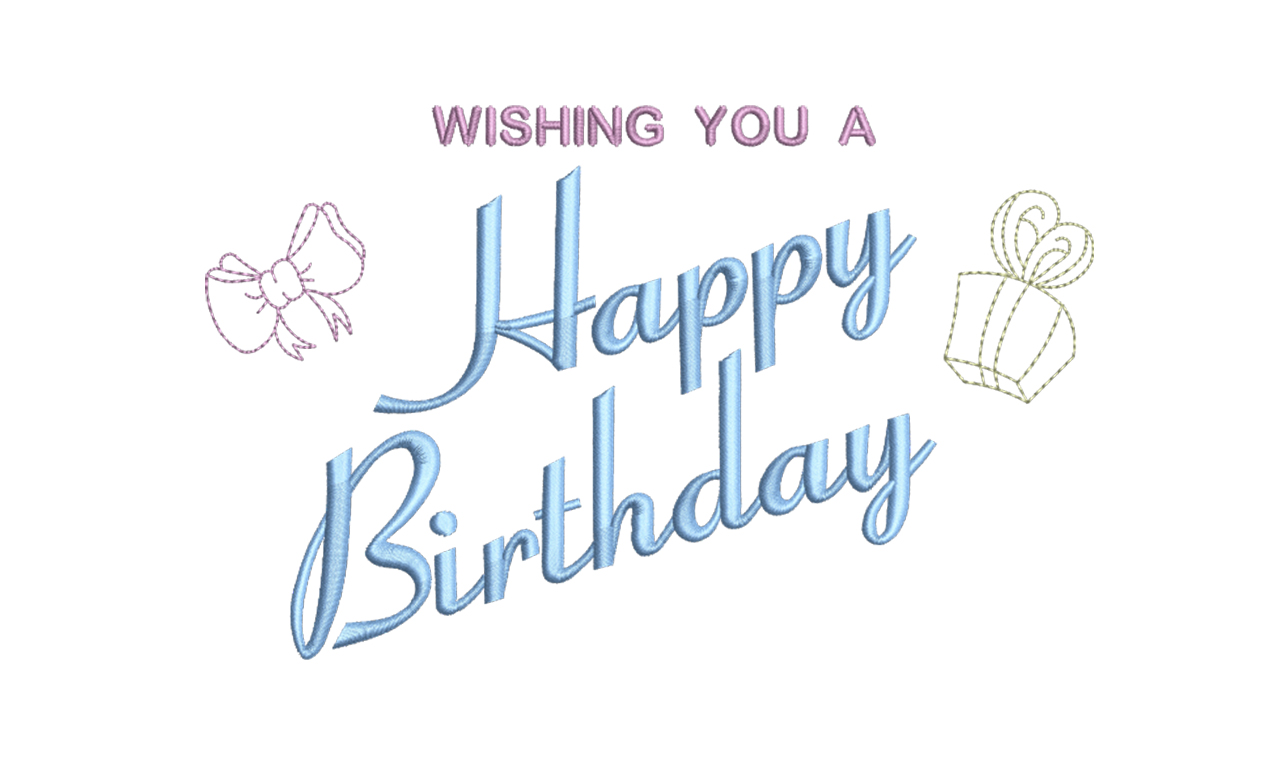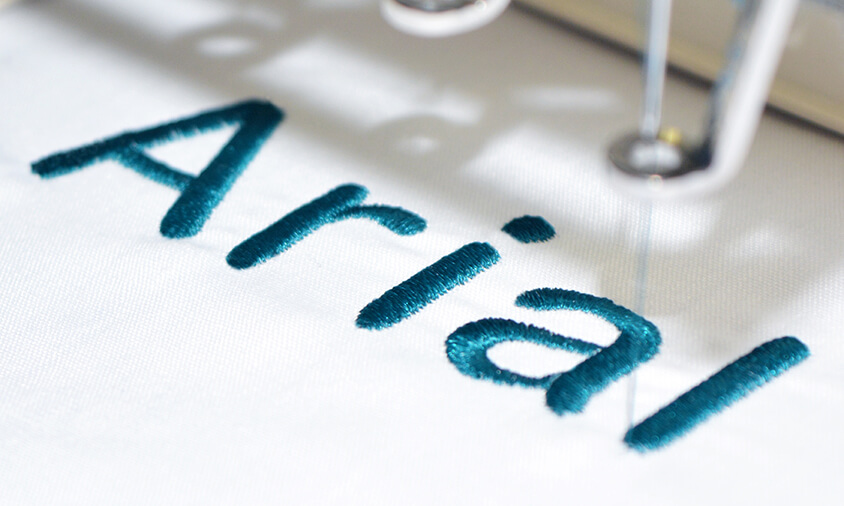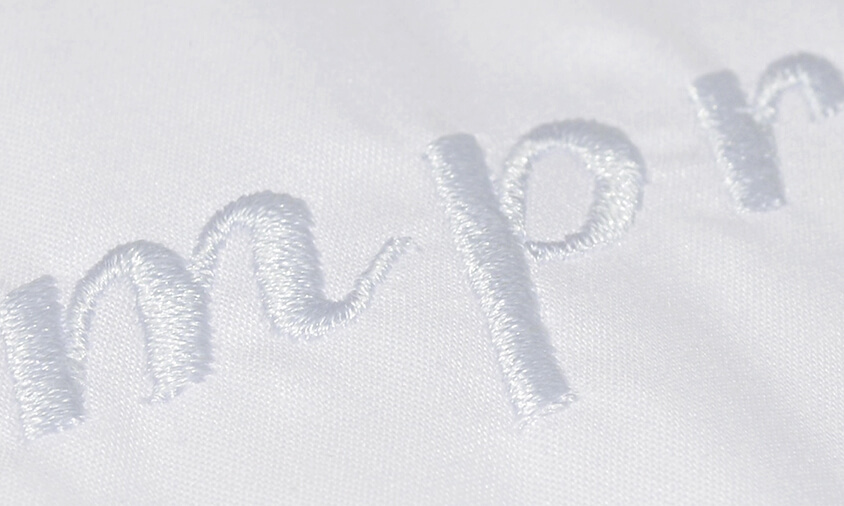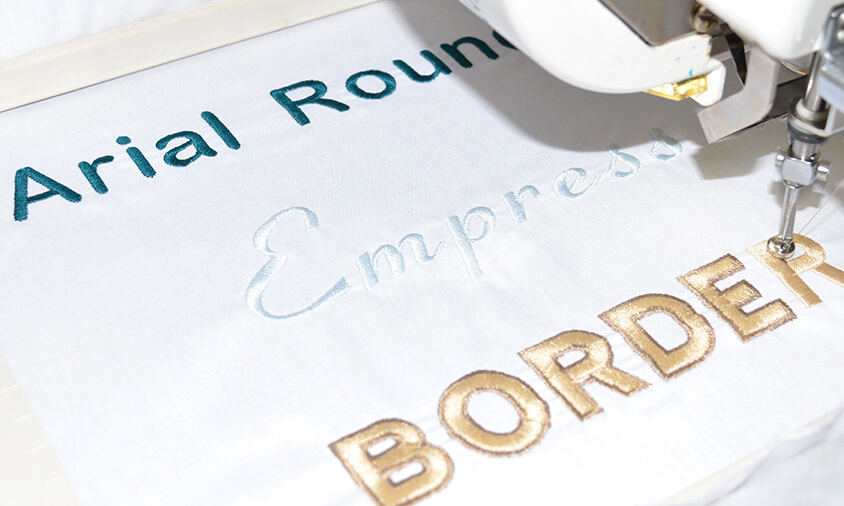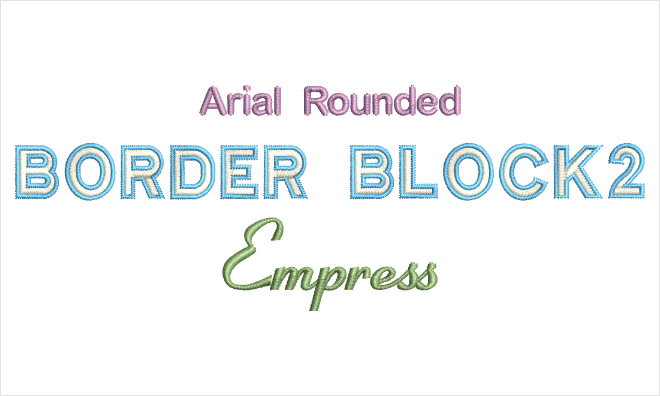
Font Pack #4 - Décor
Looking to do some home décor? This collection of professional embroidery lettering will add a touch of class. Arial Rounded gives you the modern look. Empress is great for a slanted look without going script. Border Block 2 is an upper-case font using a two-color block.
Fonts in this pack
Arial Rounded
This is perfect for a modern look
Empress
Perfect for a fancy slanted look without a script font
Border Block 2
All upper case letters in a two-color block.
Looking to do some home décor? This collection of professional embroidery lettering will add a touch of class. Arial Rounded gives you the modern look. Empress is great for a slanted look without going script. Border Block 2 is an upper-case font using a two-color block.